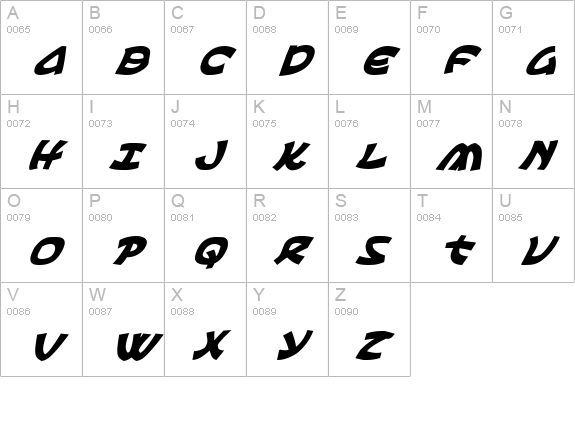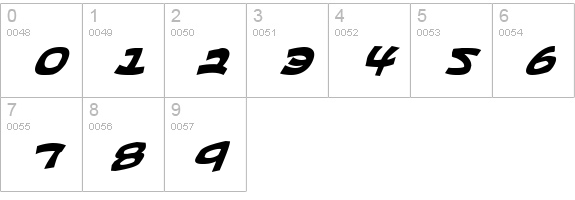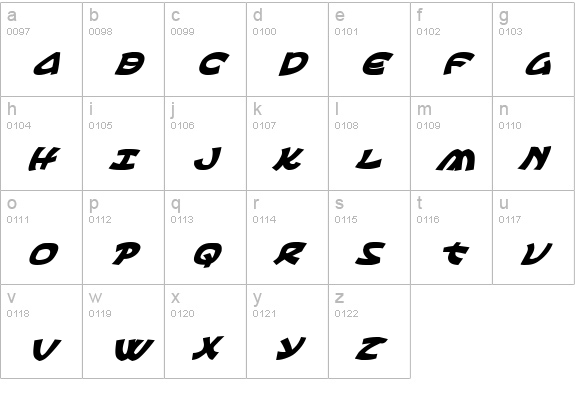
Ephesian Bold Italic is a strong, high-contrast, italic variant in the Ephesian typeface family \xE2\x80\x94 well suited to headlines, attention-grabbing titles, and strong calls-to-action.
Ephesian Bold Italic font is a stunning and versatile typeface that exudes elegance and sophistication. Its bold yet graceful strokes make it perfect for adding a touch of sophistication to any project. The italicized design adds a sense of flair and style, making it ideal for use in headings, titles, and other design elements. What sets Ephesian Bold Italic font apart is not only its visual appeal but also its availability for free download. Yes, you read that right! This exquisite font is freely available to download at FontsMarket.com. So, whether you're a designer looking to elevate your next project or someone in need of a sleek and modern typeface for personal use, Ephesian Bold Italic font is the perfect choice. Download it now and add a touch of elegance to your designs!